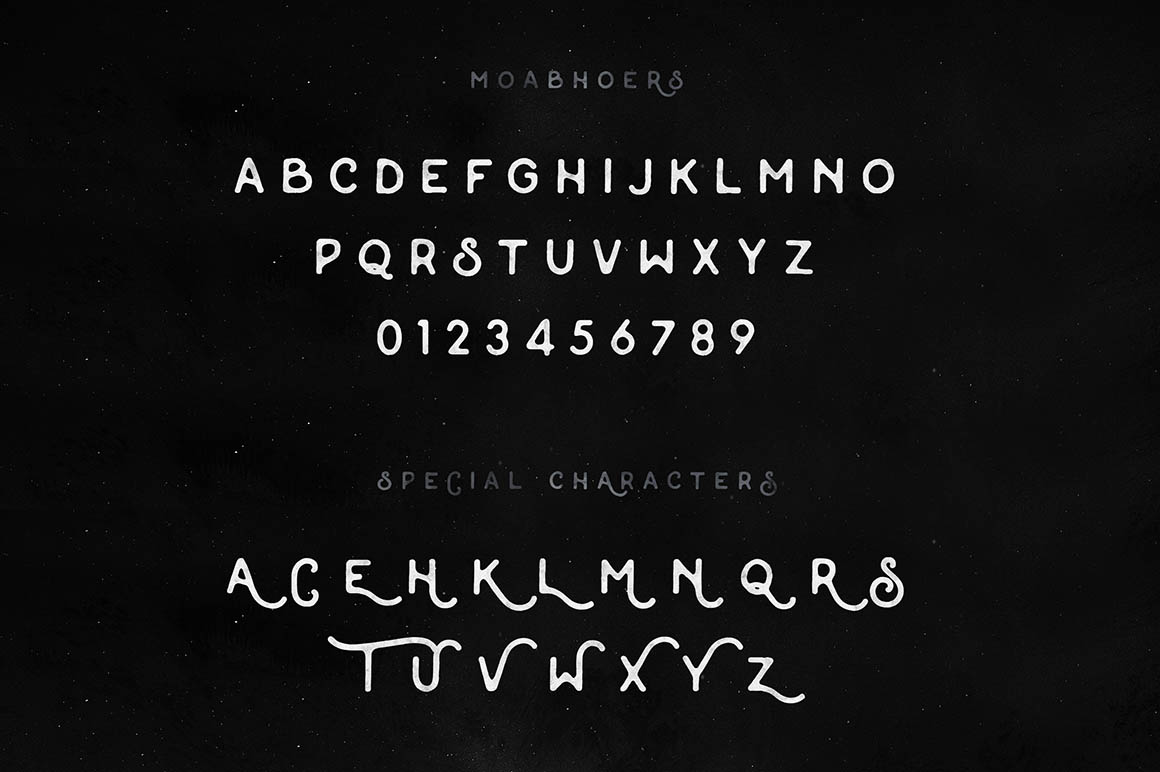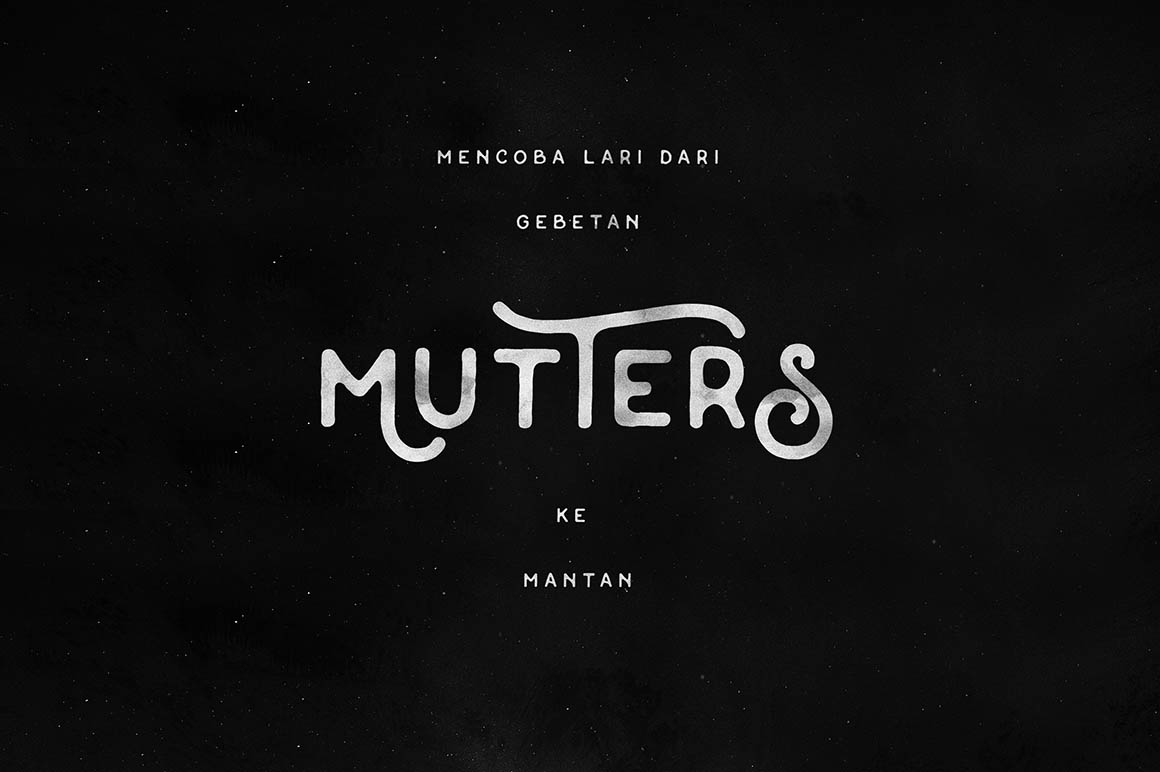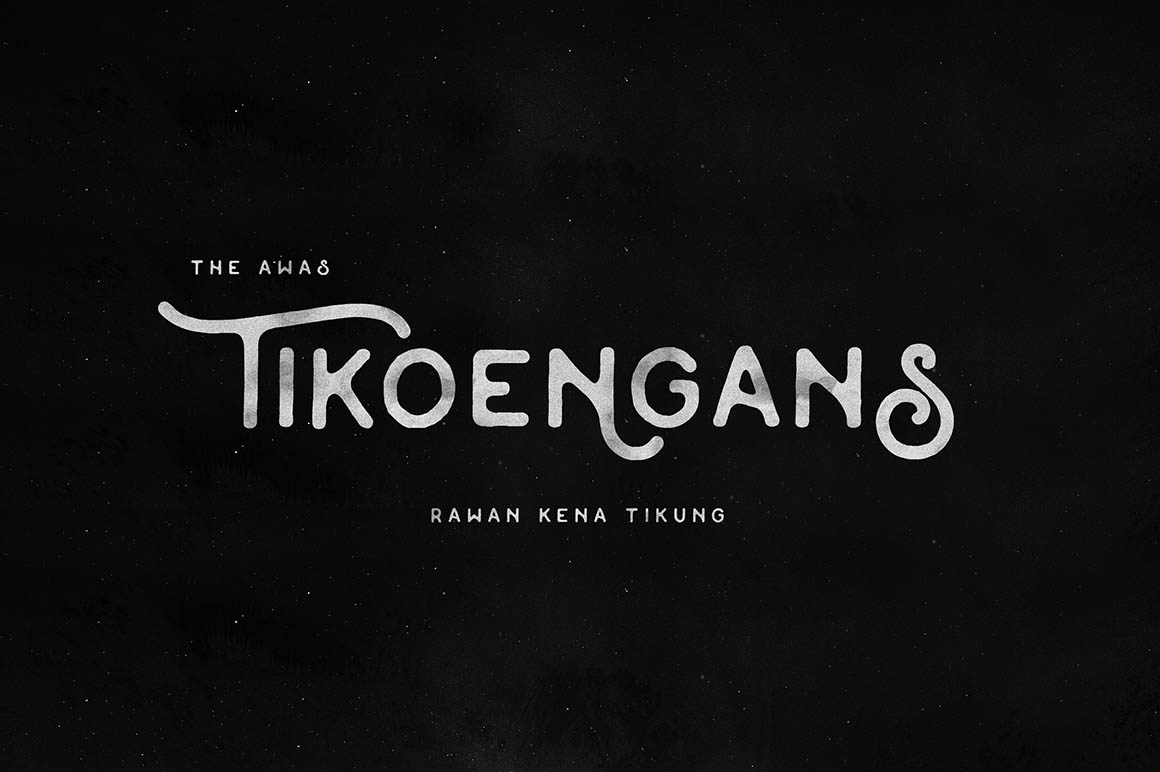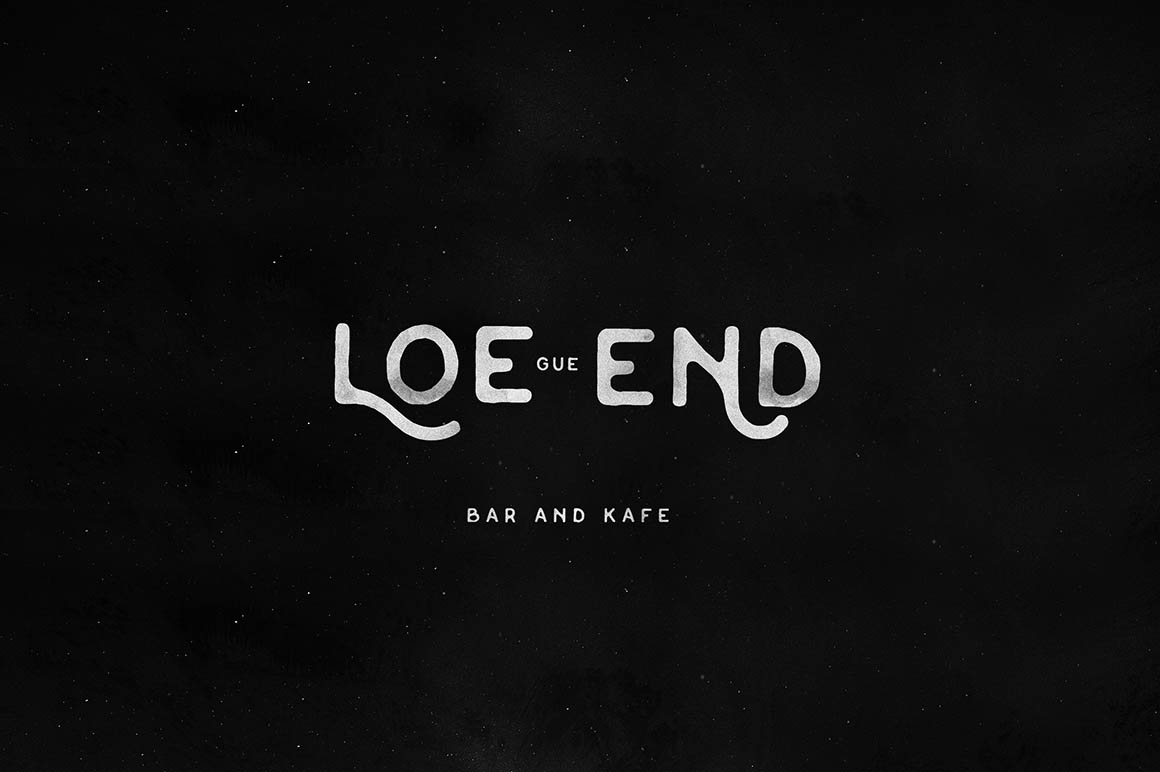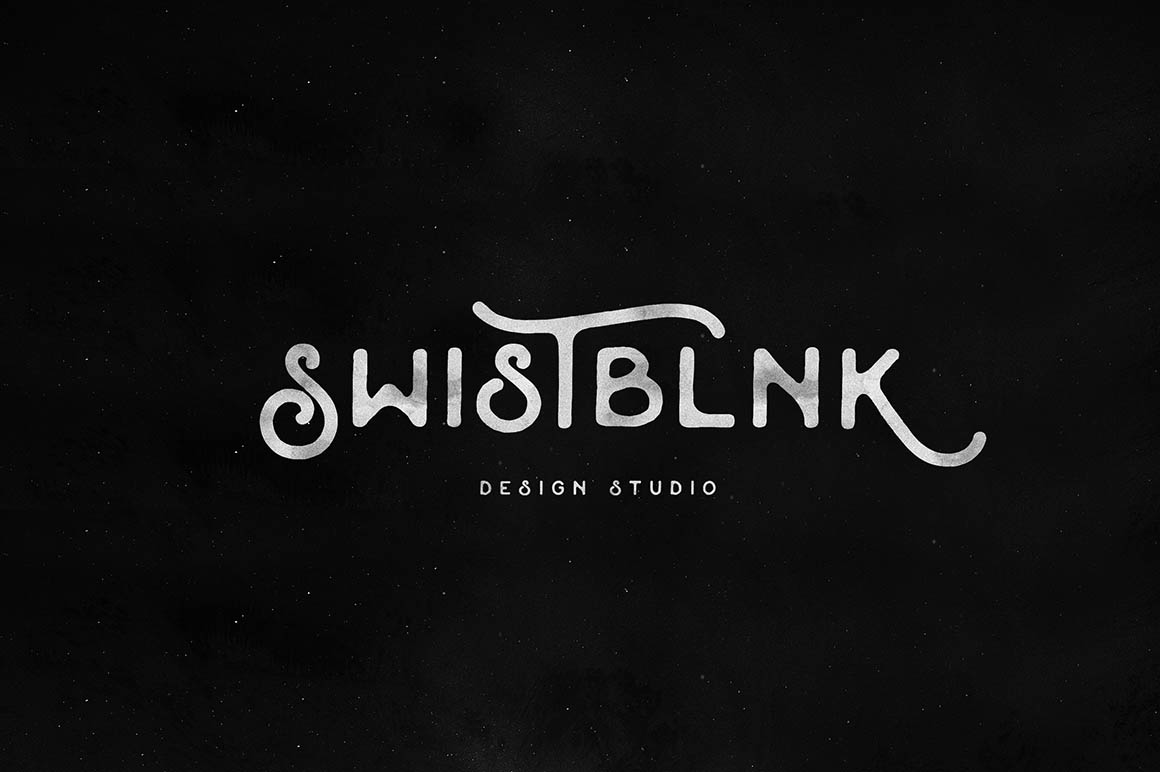
Moabhoers – Free Vintage Font
This retro/vintage grunge style custom font is from Agga Swist’blnk. An all caps font / typeface with amazing vintage style. Also contained special characters. Download and enjoy 😉